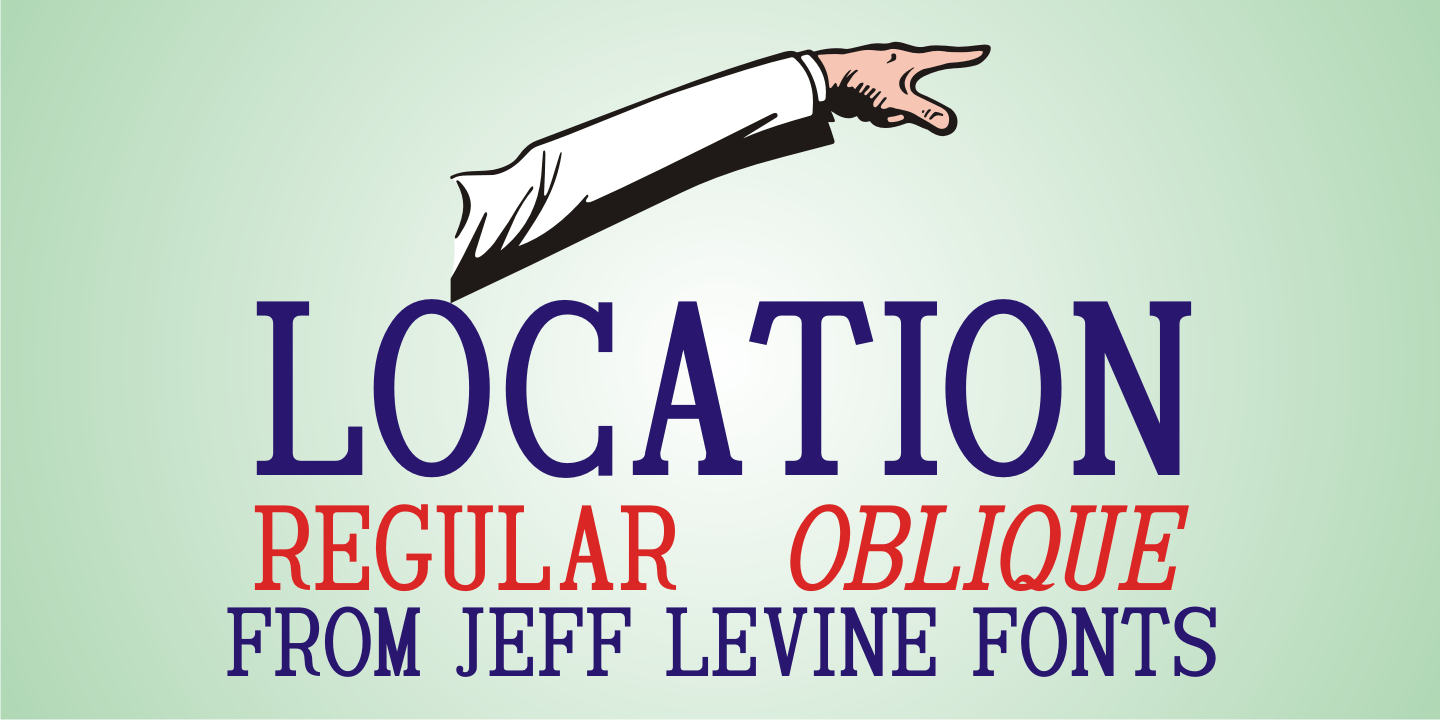
Location
The lettering style of Location JNL is based on sets of 'vintage' metal house identification letters and numbers seen for sale online.
As these sets are available from overseas sources, it's not clear whether those metal characters are cast from original vintage dies that have been used for years or just designed to look like a vintage style of lettering.
Nonetheless, they make for a great digital interpretation and the design is available in bothr egular and oblique versions.